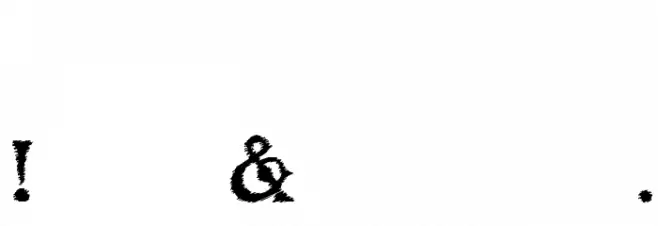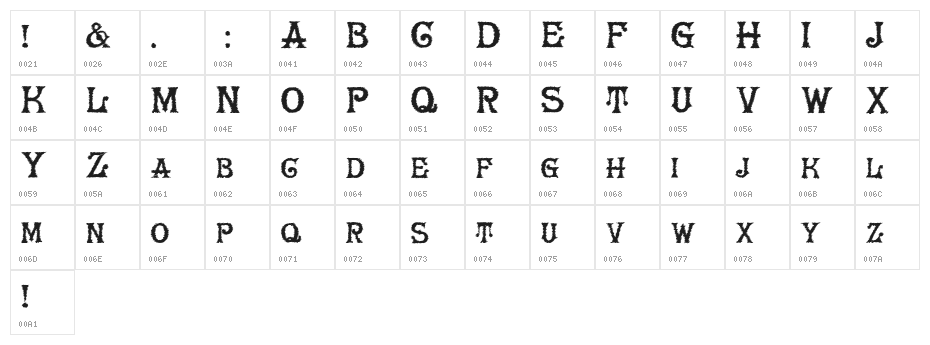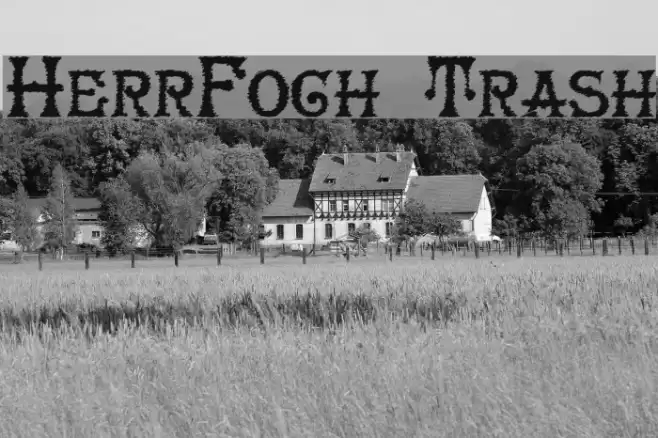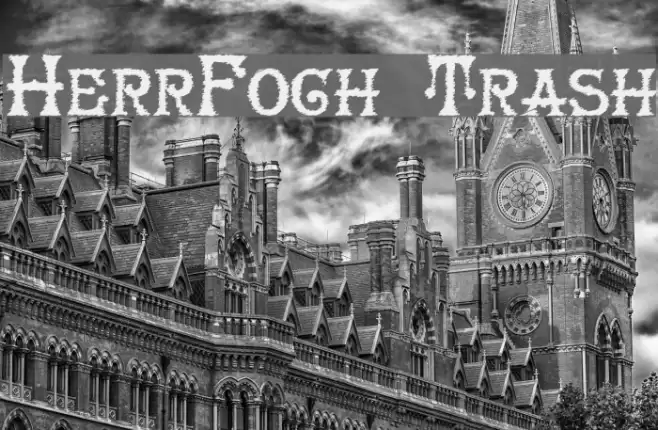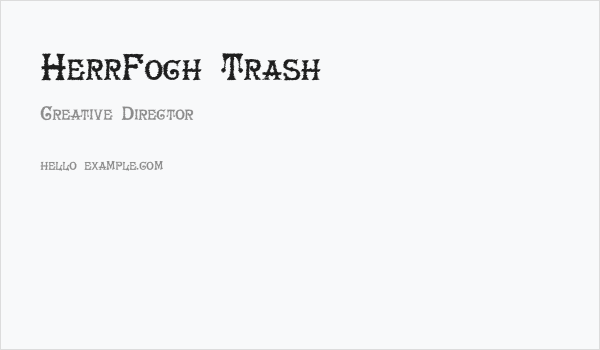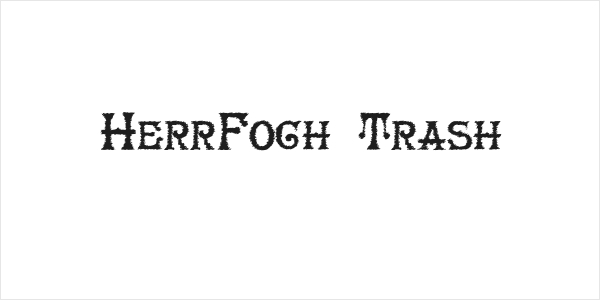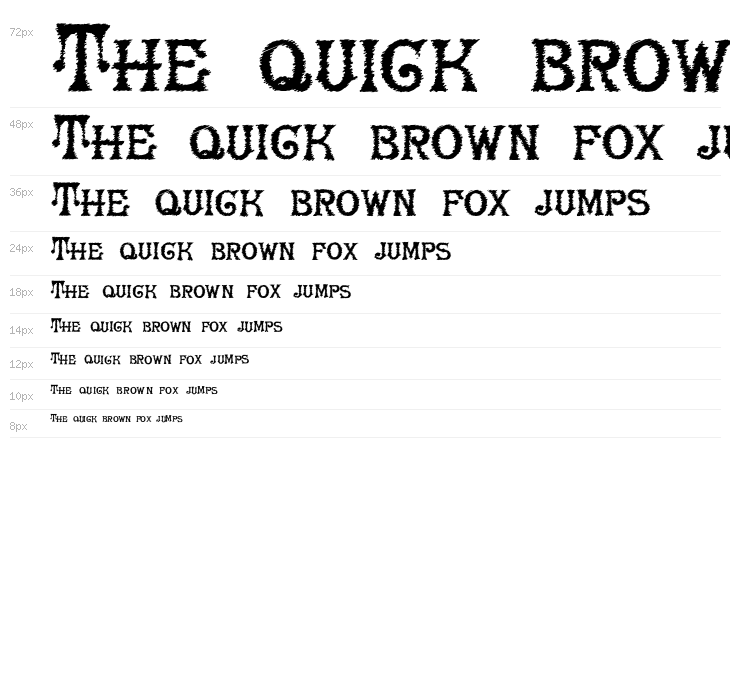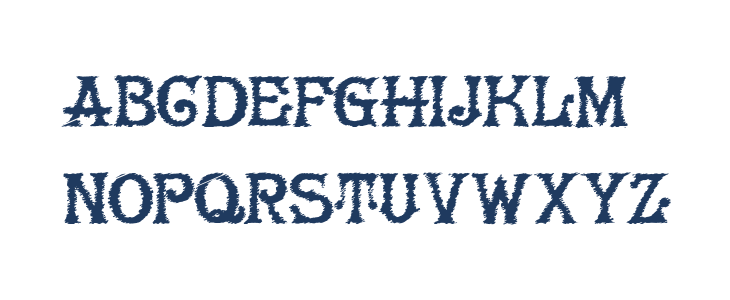
HerrFoch Trash Font
HerrFoch Trash Description
This font features a highly decorative and distressed style, characterized by its jagged and irregular edges. The uppercase letters are bold and prominent, with a unique texture that gives them a rough, almost torn appearance. The font's design is reminiscent of vintage or grunge aesthetics, making it stand out with its bold and eye-catching presence. The characters are evenly spaced, ensuring readability despite their intricate design. This font is particularly suited for creative projects that require a distinctive and edgy look.
| Proposed Projects | Ideal for poster designs, album covers, branding for edgy or alternative products, and any project seeking a vintage or grunge aesthetic. |